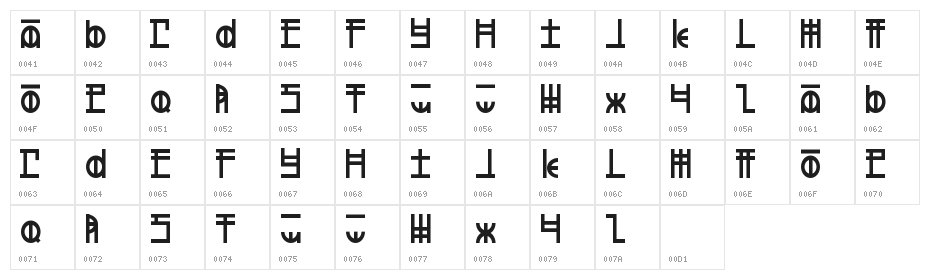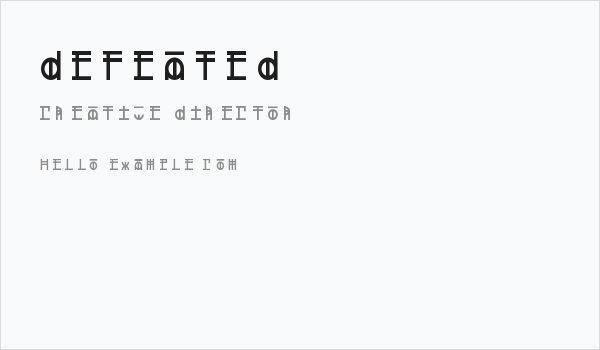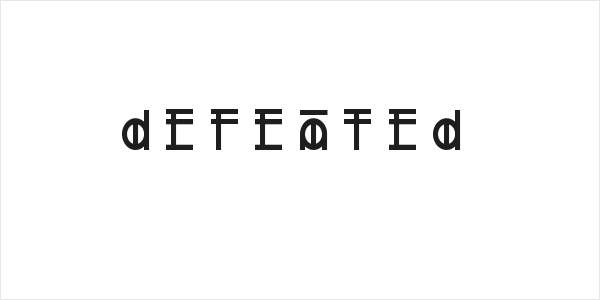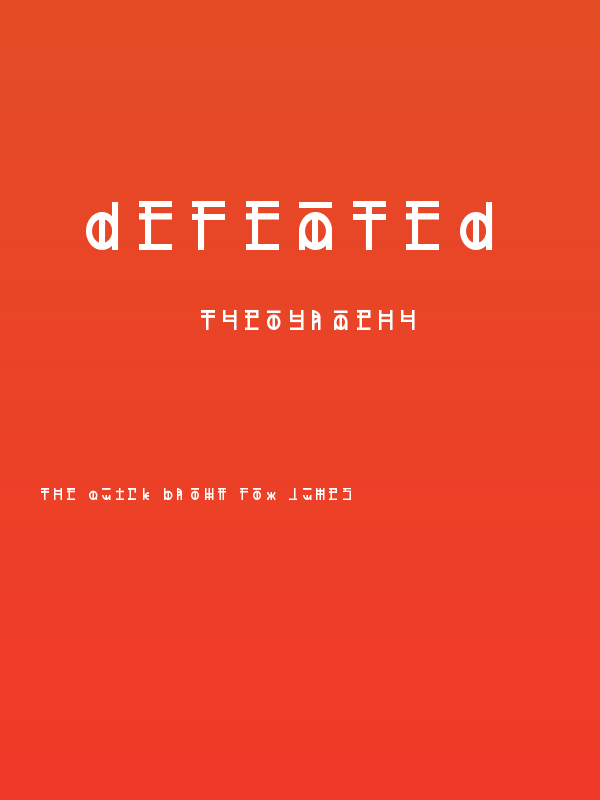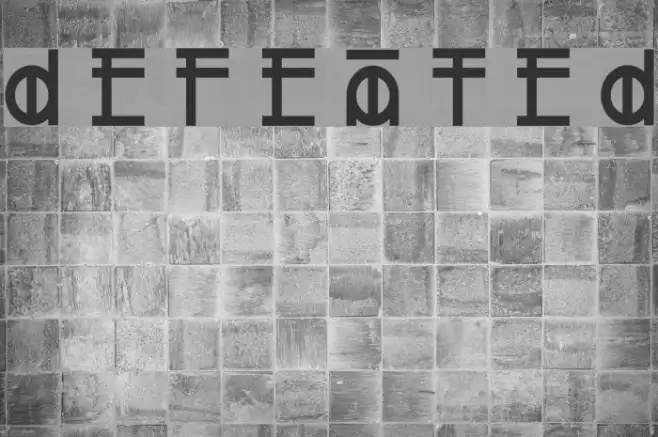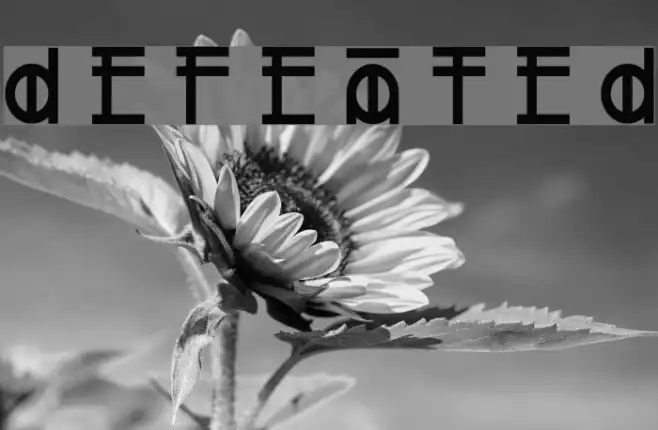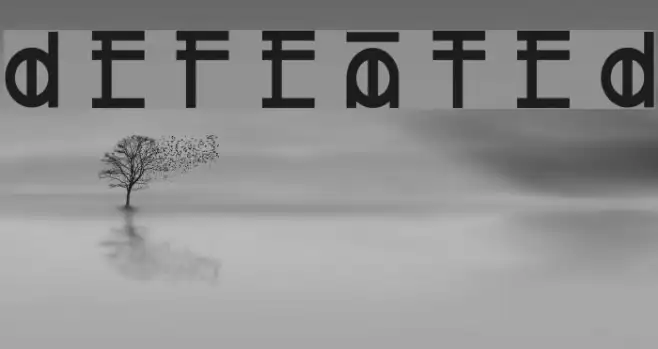
defeated Font
defeated Description
This font features a bold and geometric design with a modern and futuristic aesthetic. The characters are constructed with straight lines and sharp angles, giving them a mechanical and structured appearance. The uppercase and lowercase letters maintain a consistent height, contributing to a uniform and cohesive look. The numbers and special characters are designed to match the overall style, ensuring a seamless integration across different uses. The font's distinct and striking appearance makes it suitable for projects that require a strong visual impact.
| Proposed Projects | Ideal for technology branding, sci-fi posters, video game titles, and modern art installations. |